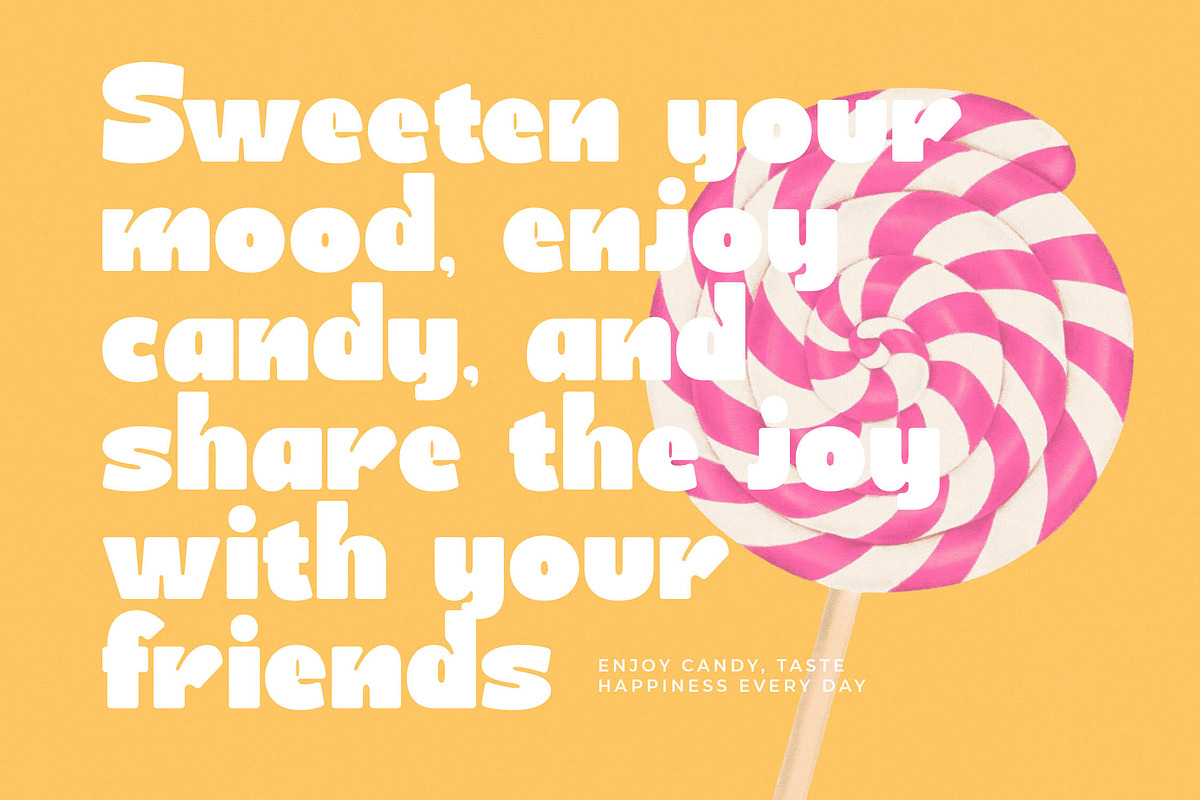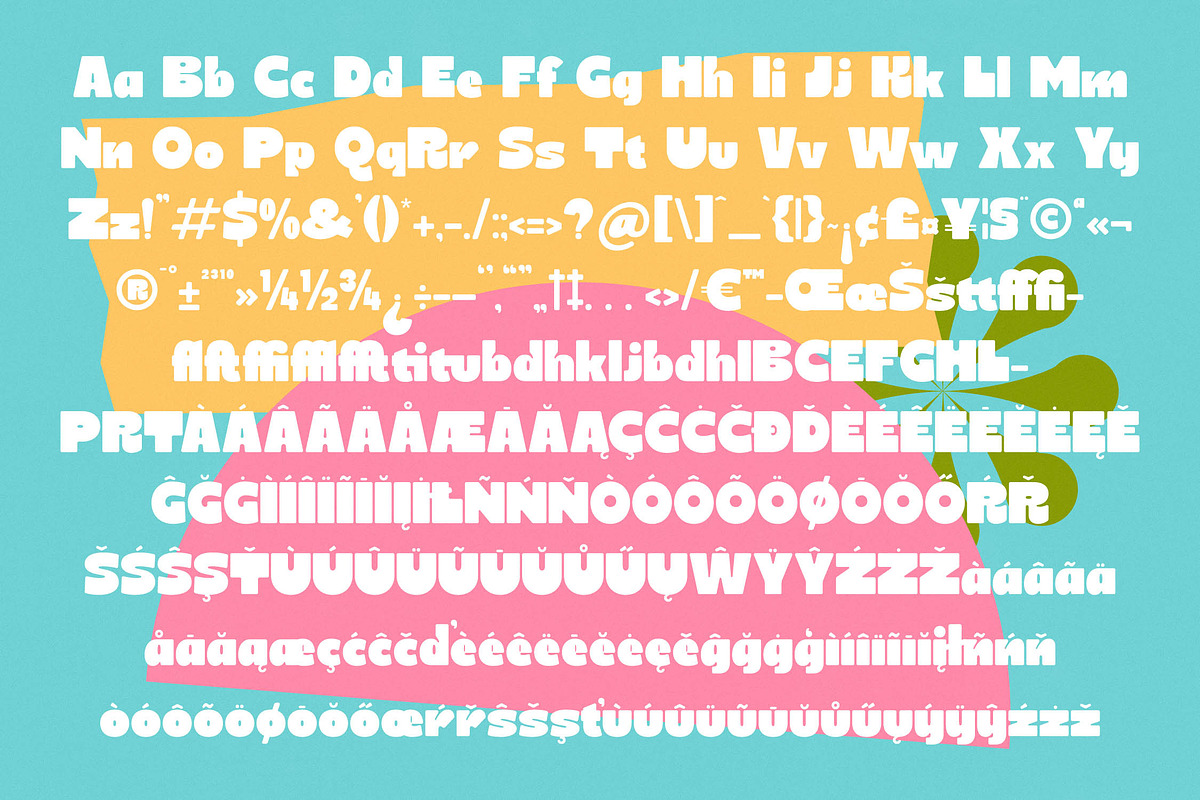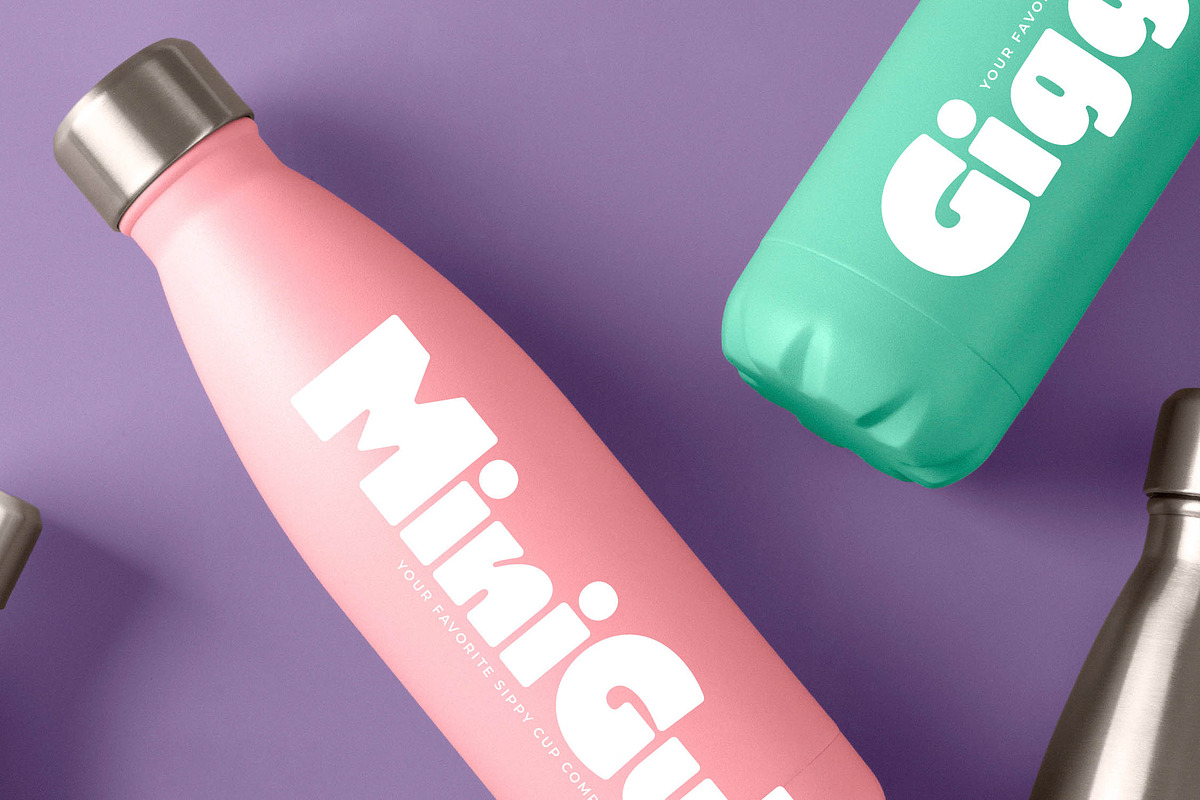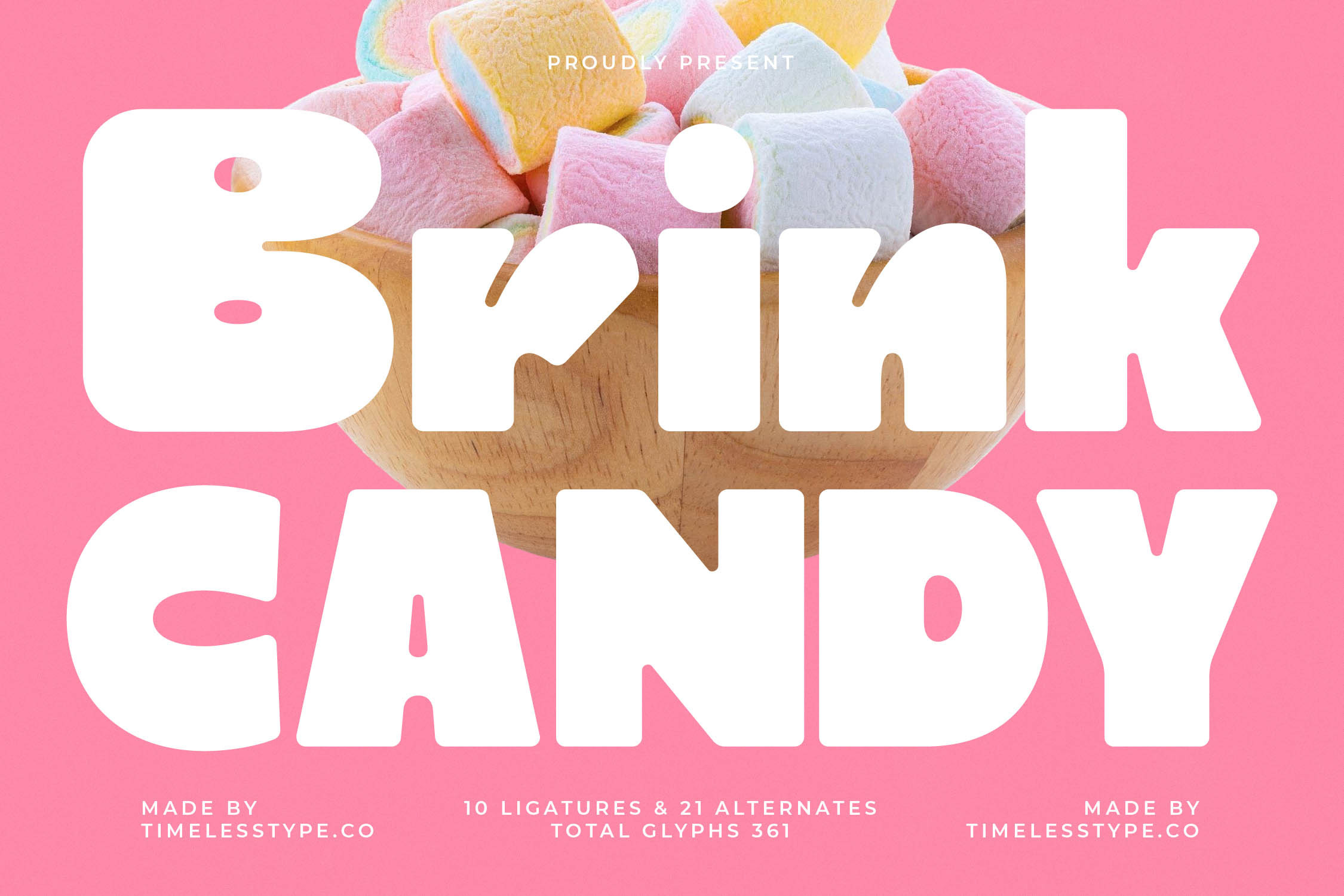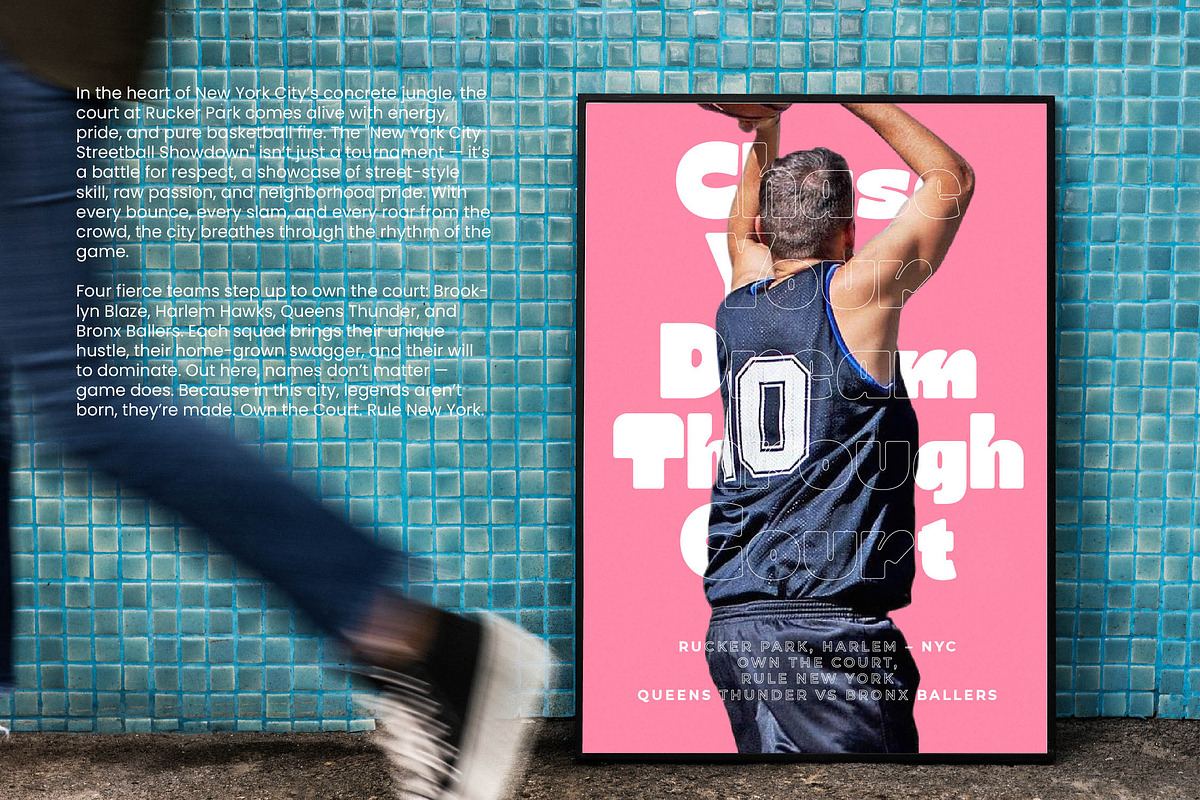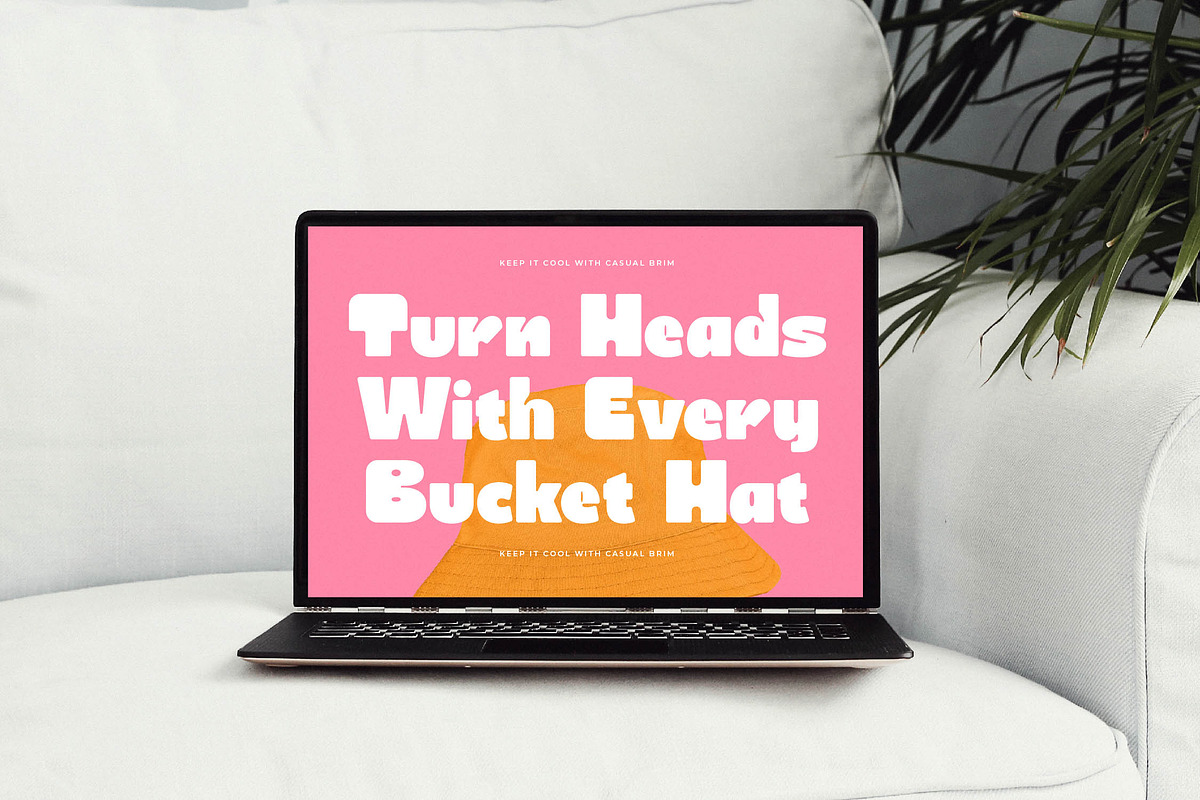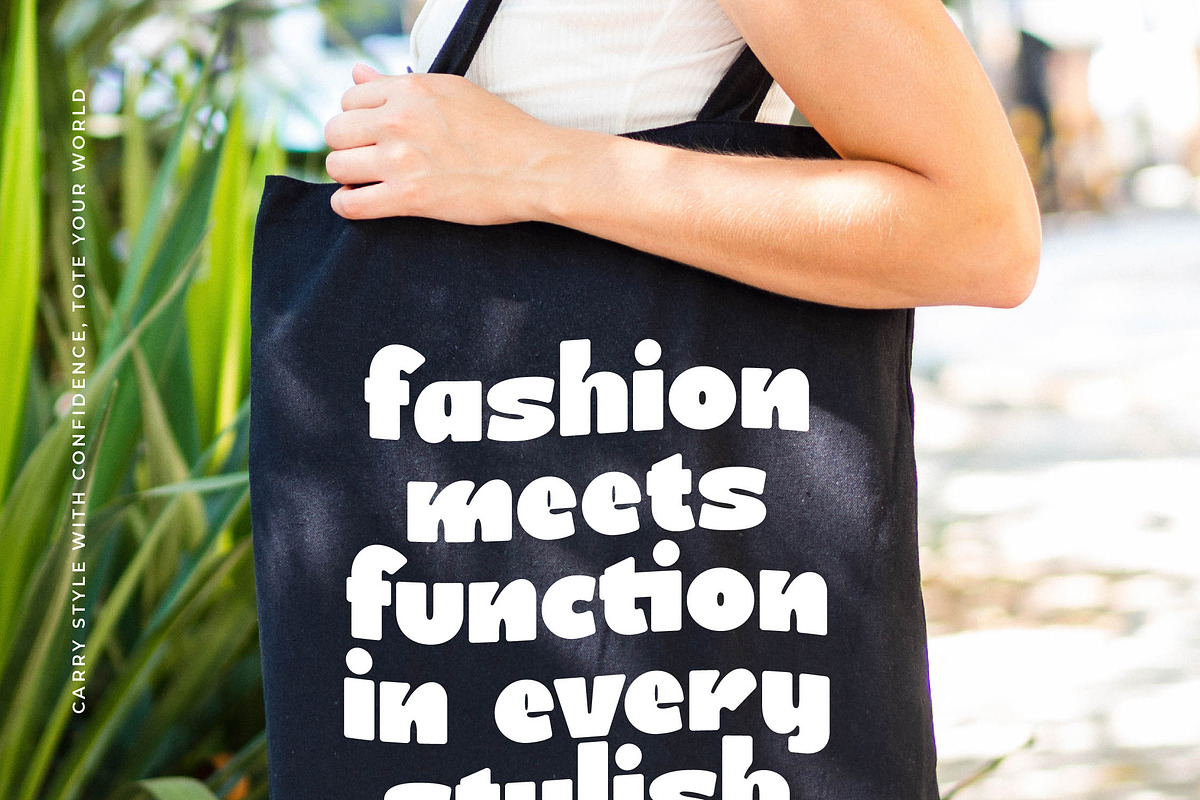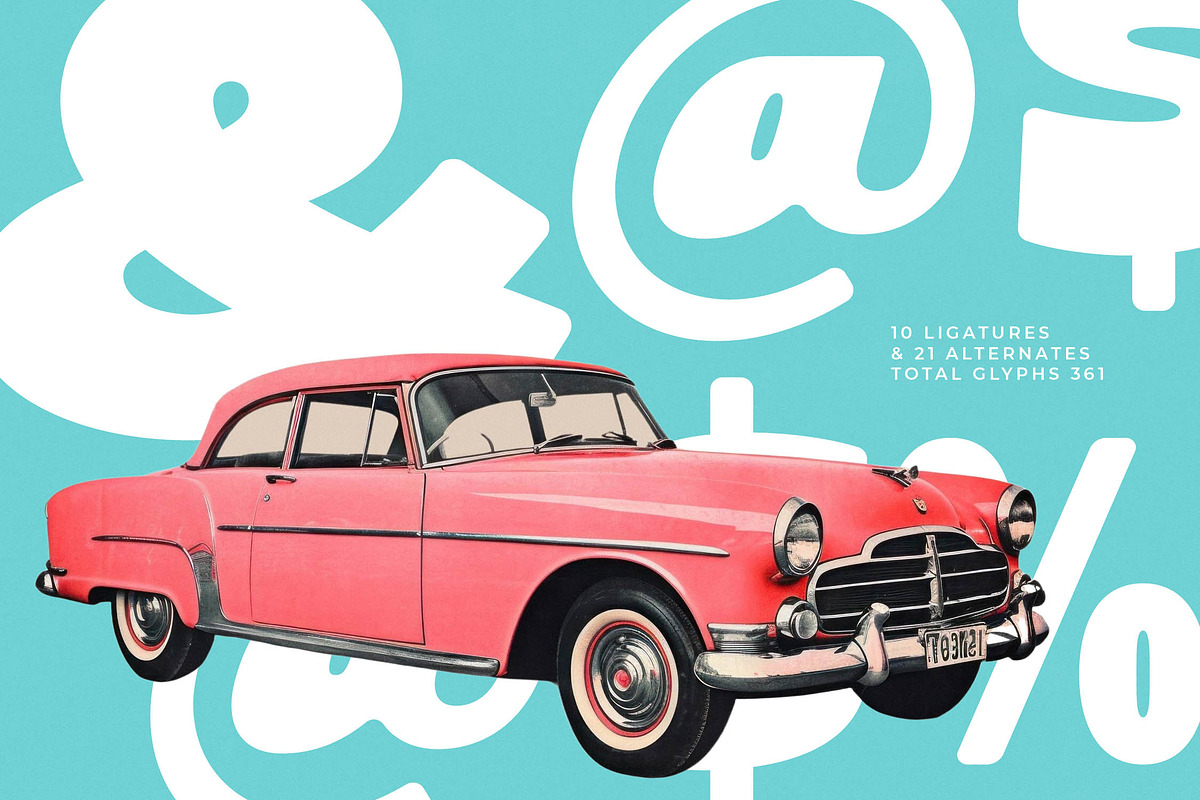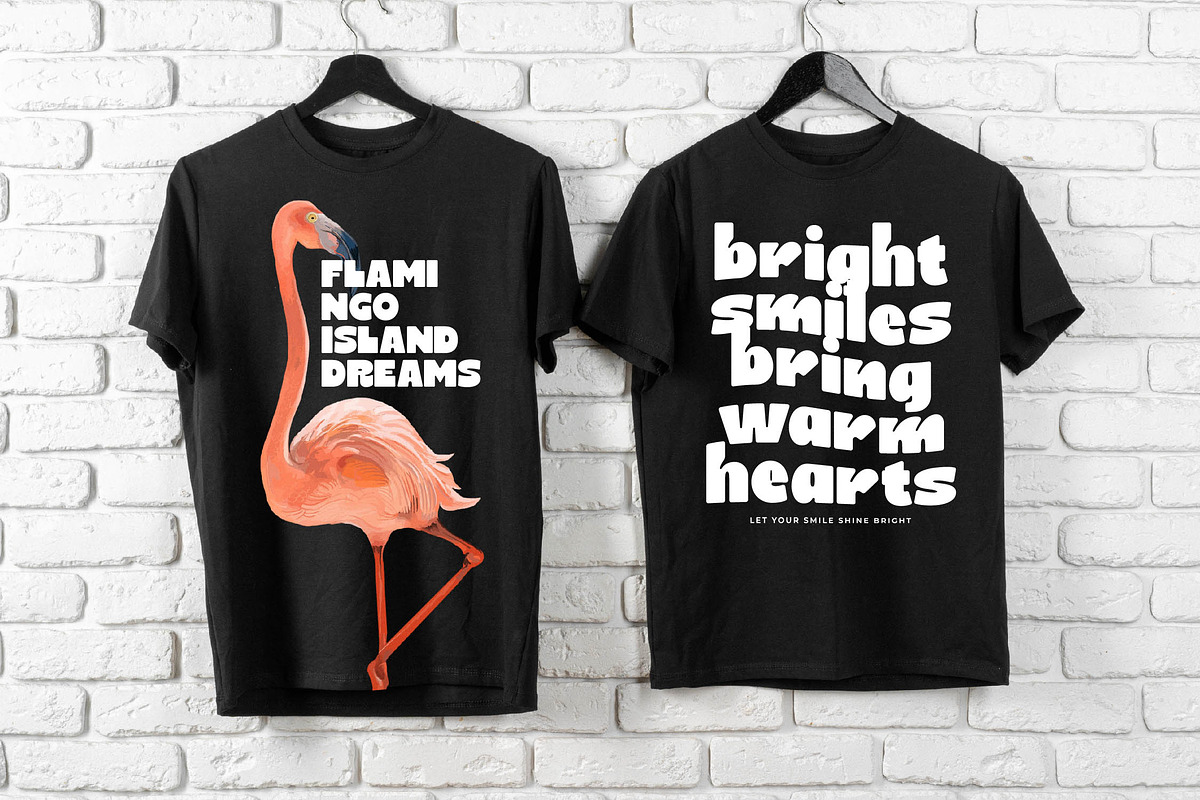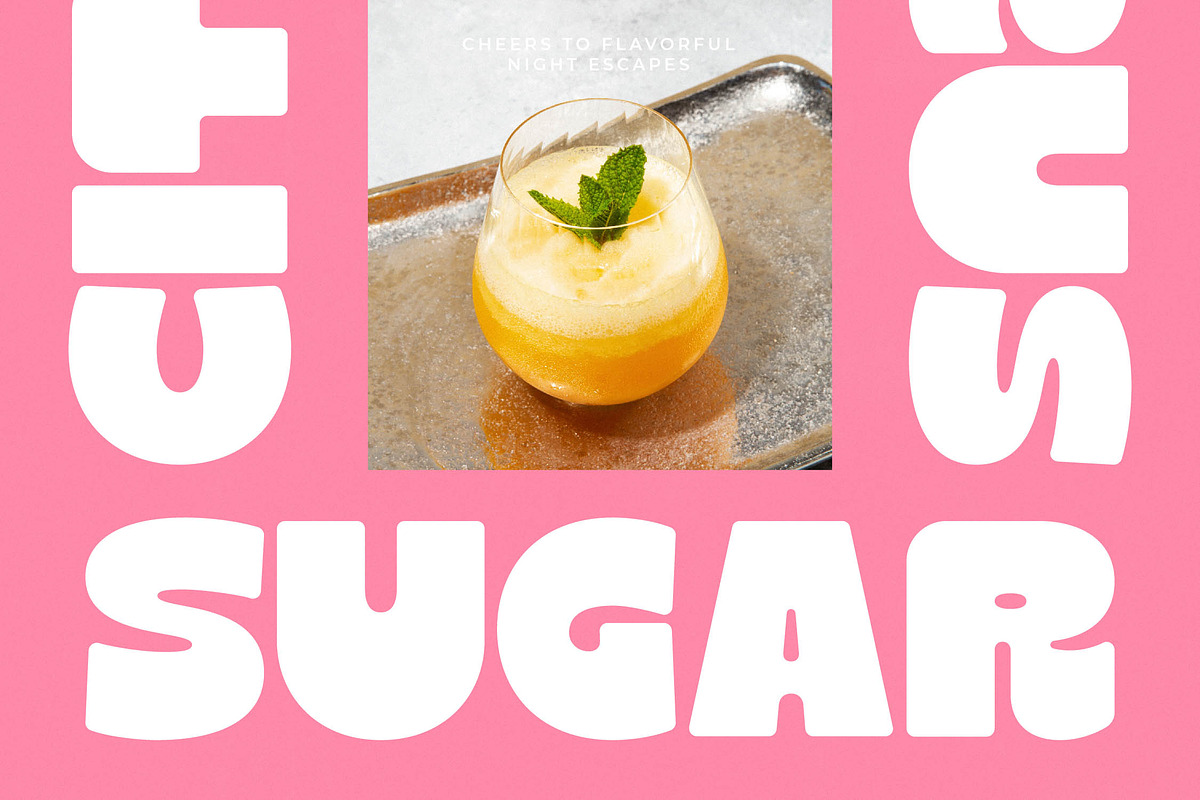
Brink Candy Playful Bubble Font
Indulge your creative cravings with Brink Candy, a delightfully thick display font that brings a rush of sugary sweetness to every design project. This typeface is crafted to turn heads and leave a lasting impression with its bold, pillowy presence and energetic silhouettes.
Inspired by the nostalgic joy of a local confectionery shop, this font captures the soft, rounded edges of marshmallows and the vibrant energy of 1970s pop art. Every curve and swell in the letterforms echoes the organic shapes found in childhood treats and vintage candy wrappers, creating a bridge between nostalgia and modern aesthetics.
Brink Candy is more than just a playful face; it is a modern serif display powerhouse designed for luxury typography enthusiasts who want to break away from traditional rigidity. Its high-impact silhouette offers a unique high-contrast serif feel that ensures your editorial font choices stand out with maximum branding impact.
As the modern serif trend continues to embrace softer, more approachable aesthetics, this font positions itself at the forefront of editorial display fonts. It perfectly taps into the current global demand for character-driven typography that prioritizes warmth and approachability over clinical digital precision.
From eye-catching logo design to cohesive brand identities, this font is the perfect choice for branding, editorial layouts, and whimsical packaging. Its versatile nature also makes it a surprising but effective choice for modern wedding stationery or high-energy fashion campaigns looking for a touch of bold retro flair.
This comprehensive typeface includes a generous set of ligatures and alternates to help you customize every word to perfection. With support for multilingual layouts and a full suite of international characters, it ensures your message resonates across global markets without any technical limitations.
- Ligature 10 Alternate 21